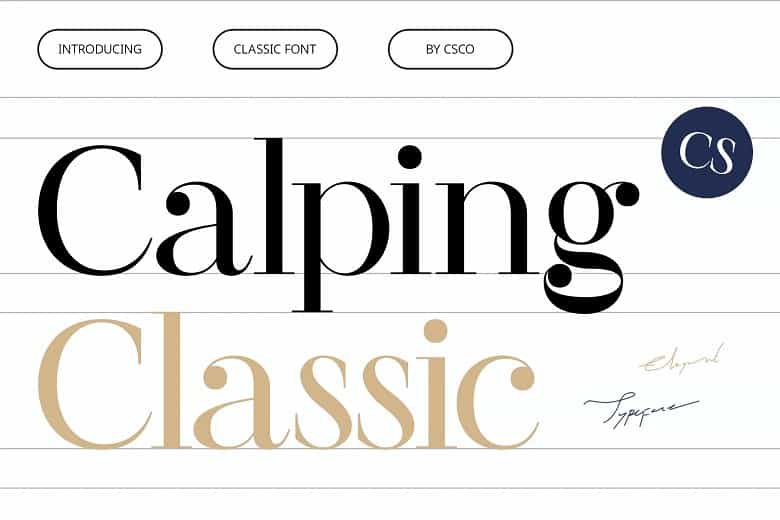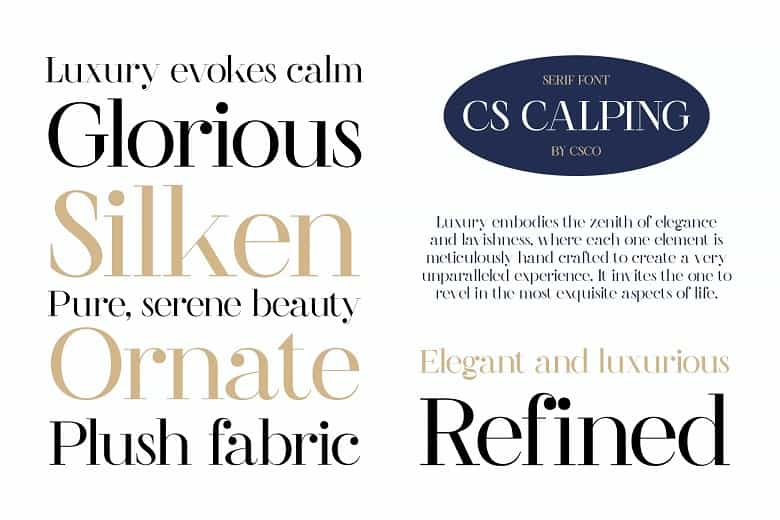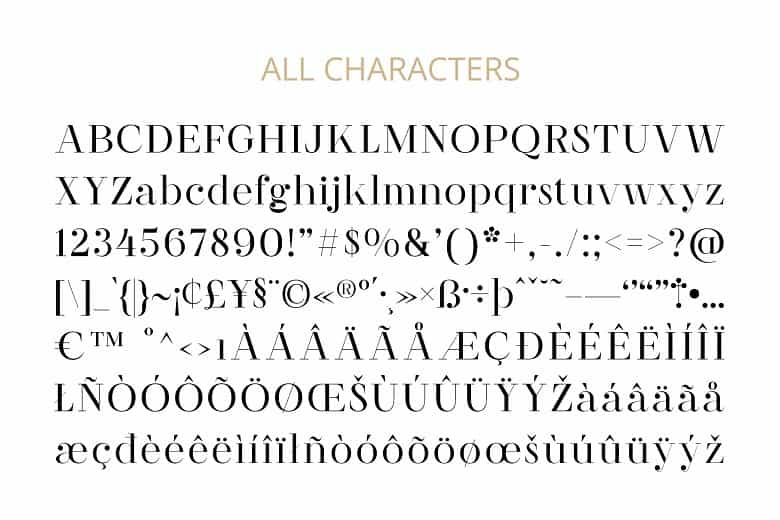
Here is the CS Calping, a classic serif font, that combines the traditional and the contemporary in a very stylish manner. This is characterized by heavy and thin lines and acute and graceful serif. This high contrast and intricate detailing contribute to a highly structured and polished appearance which is the very epitome of sophistication. This makes CS Calping suitable for projects that demand the feel of the royal and the rich since it is lavish and formal.